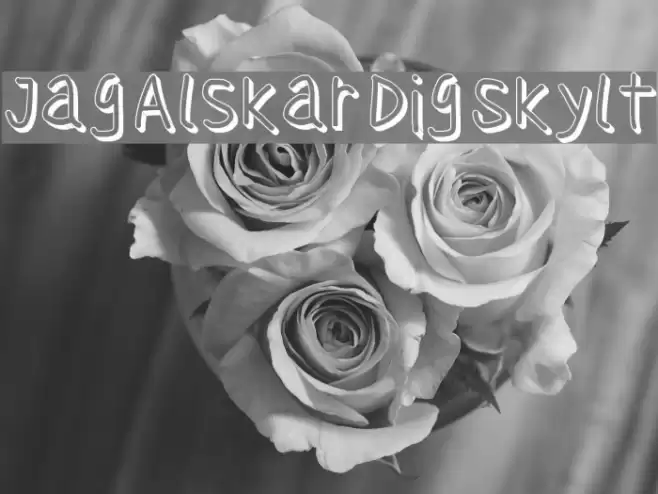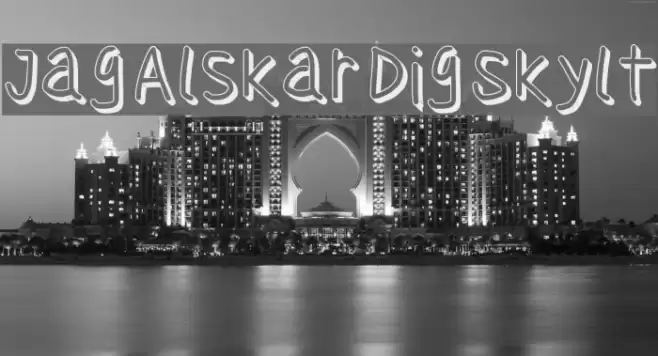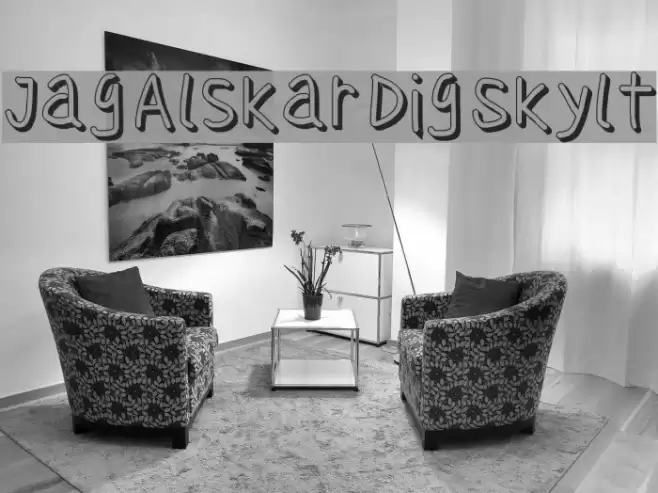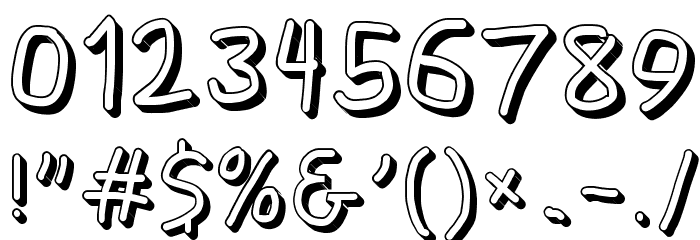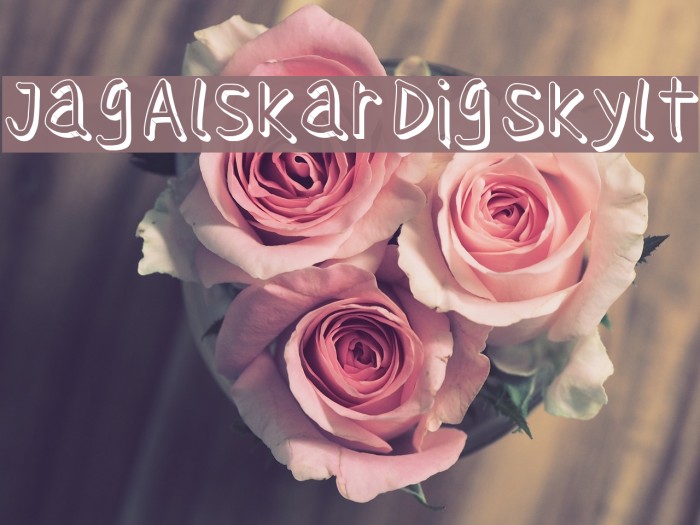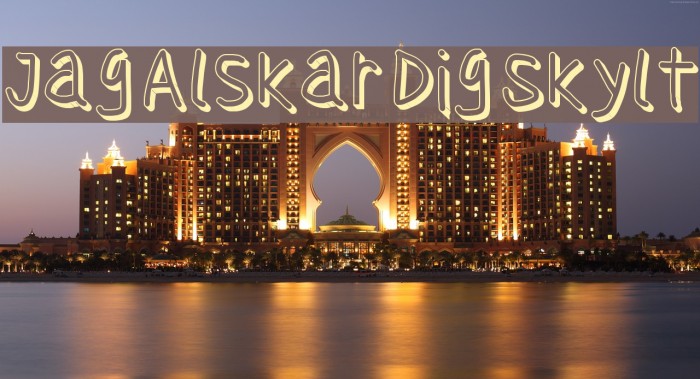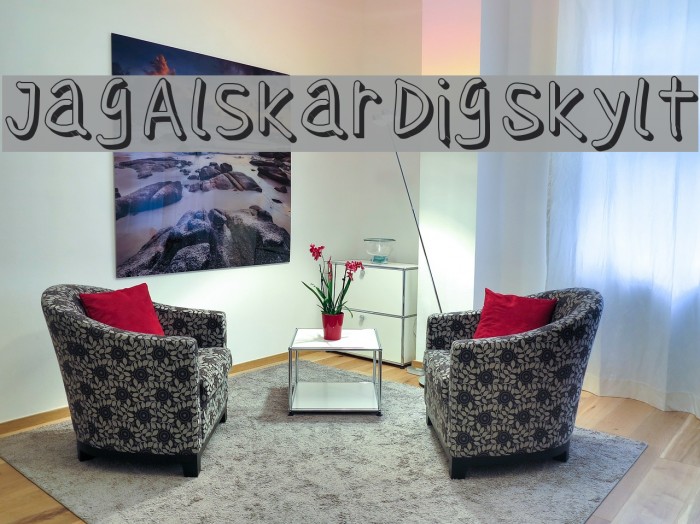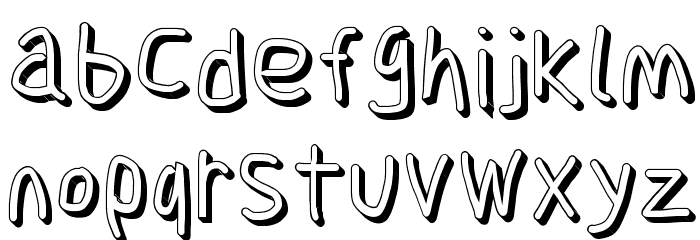
Jag Alskar Dig Skylt Font
Jag Alskar Dig Skylt Description
This playful and bold font features a hand-drawn, cartoonish style with a three-dimensional effect created by a shadow outline. The characters are rounded and slightly irregular, giving them a whimsical and informal appearance. The uppercase and lowercase letters maintain a consistent style, with a slight tilt and varying stroke thickness that adds to the casual feel. The numerals and special characters are equally playful, making this font suitable for creative and fun projects. Its unique style is eye-catching and ideal for designs that require a touch of personality and flair.
A playful, hand-drawn font with a 3D shadow effect and whimsical style from Uncategorized fonts.
- Proposed Projects: Ideal for children's books, comic strips, playful branding, and creative posters.